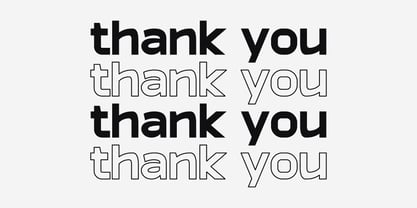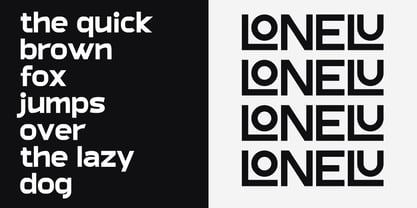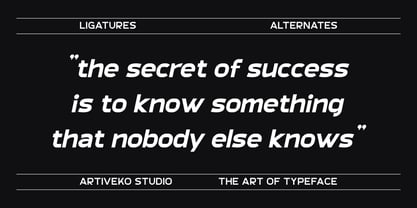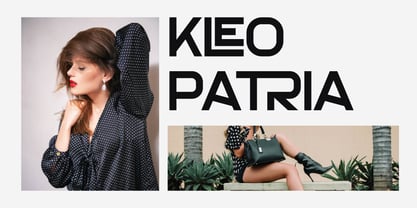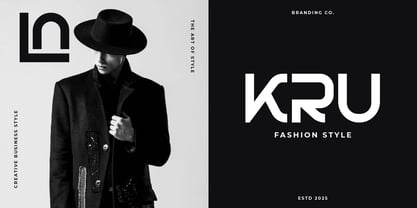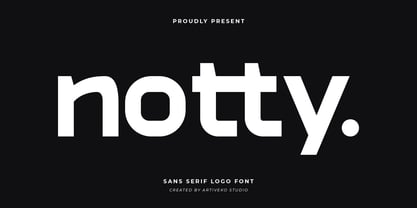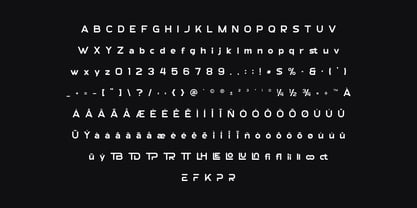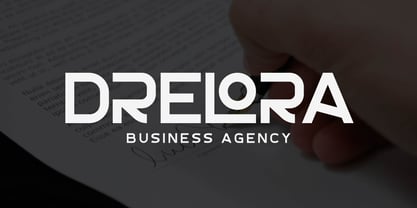
Notty
by Artiveko
The Notty Font Family was designed by Iwan Alwan and published by Artiveko. Notty contains 2 styles and family package options.
Notty is a sharp and stylish sans serif font crafted specifically for modern branding and logo creation. With its clean lines, strong geometry, and subtle quirks, Notty offers a contemporary and confident aesthetic that’s perfect for tech startups, fashion labels, creative agencies, and lifestyle brands.
Its versatile design balances minimalism with personality — making it ideal for standout logos, packaging, headers, social media visuals, and more. Notty’s unique letterforms add a touch of originality while remaining highly legible and refined.
This font includes uppercase and lowercase letters, numerals, punctuation, multilingual support, and alternates for creative flexibility.
Create a lasting impression with Notty — a modern logo font that brings clarity, boldness, and a touch of creative edge to your visual identity.